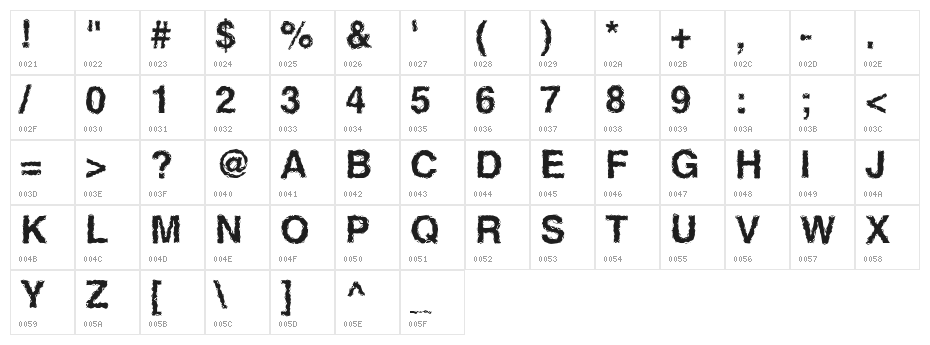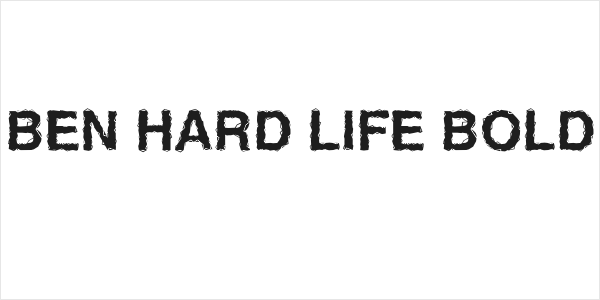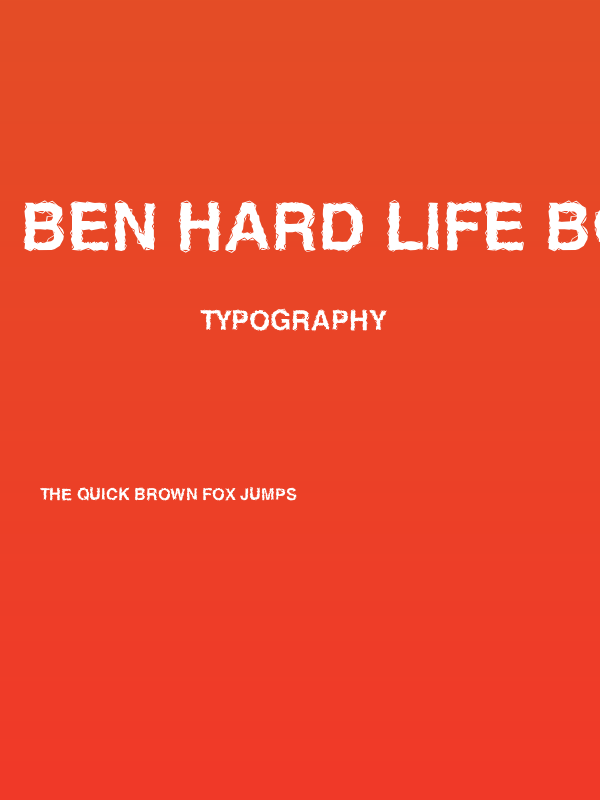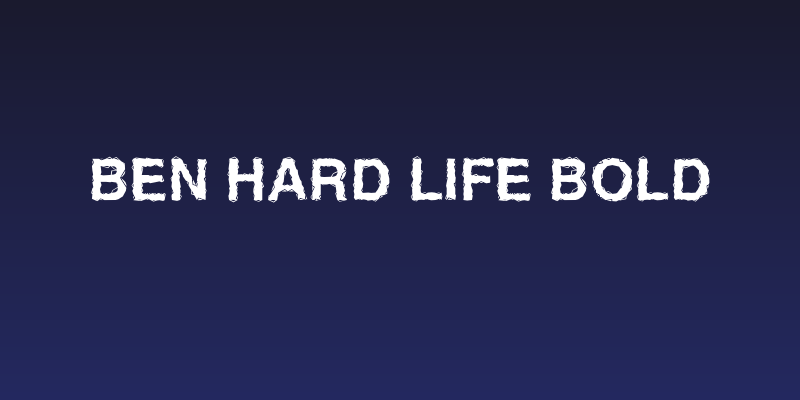
Ben Hard Life Bold Font
Ben Hard Life Bold Description
This font features a rugged, distressed appearance, giving it a bold and edgy character. The letters are heavily textured, with irregular edges that create a sense of movement and energy. This style is reminiscent of a hand-drawn or grunge aesthetic, making it stand out with its unique, rough-hewn look. The uppercase and lowercase letters maintain a consistent style, with numbers and special characters following suit. The font's boldness is evident in its thick strokes, which are unevenly distributed, adding to its raw and unpolished charm.
| Overall Style | Grunge, Edgy |
| Proposed Projects | Ideal for projects requiring a strong, edgy look such as music album covers, posters, and branding for alternative or rock-themed events. |